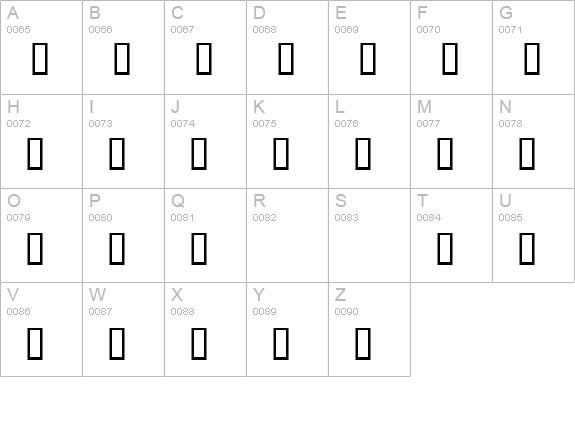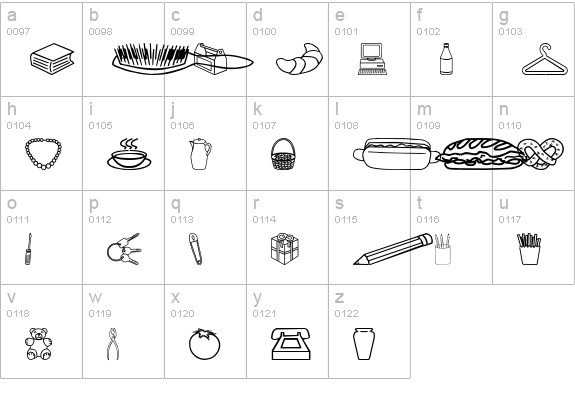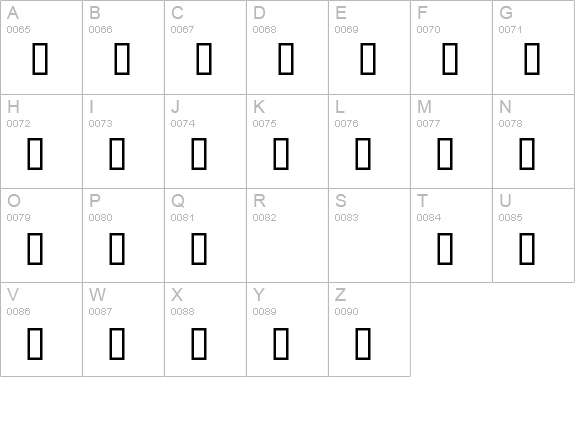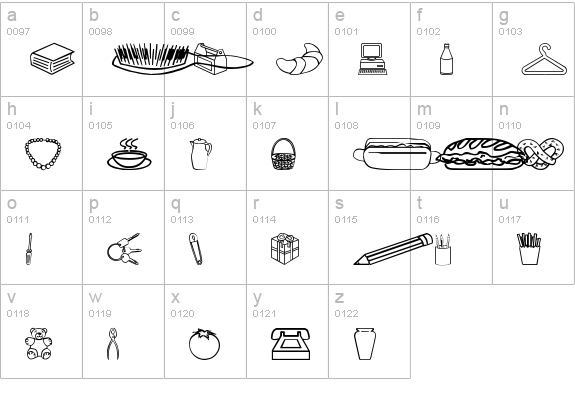
Around the house Font Details
Around the house font is a charming and versatile typeface that brings a touch of warmth and friendliness to any design project. With its rounded edges and playful curves, this font exudes a cozy and inviting feel, making it perfect for a wide range of applications. Whether you're working on a greeting card, a website design, or a branding project, Around the house font will add a touch of whimsy and personality to your work. The best part? Around the house font is completely free to download at FontsMarket.com. That's right - you can add this delightful font to your collection without spending a dime. So why wait? Give your projects a fresh and welcoming look with Around the house font today.